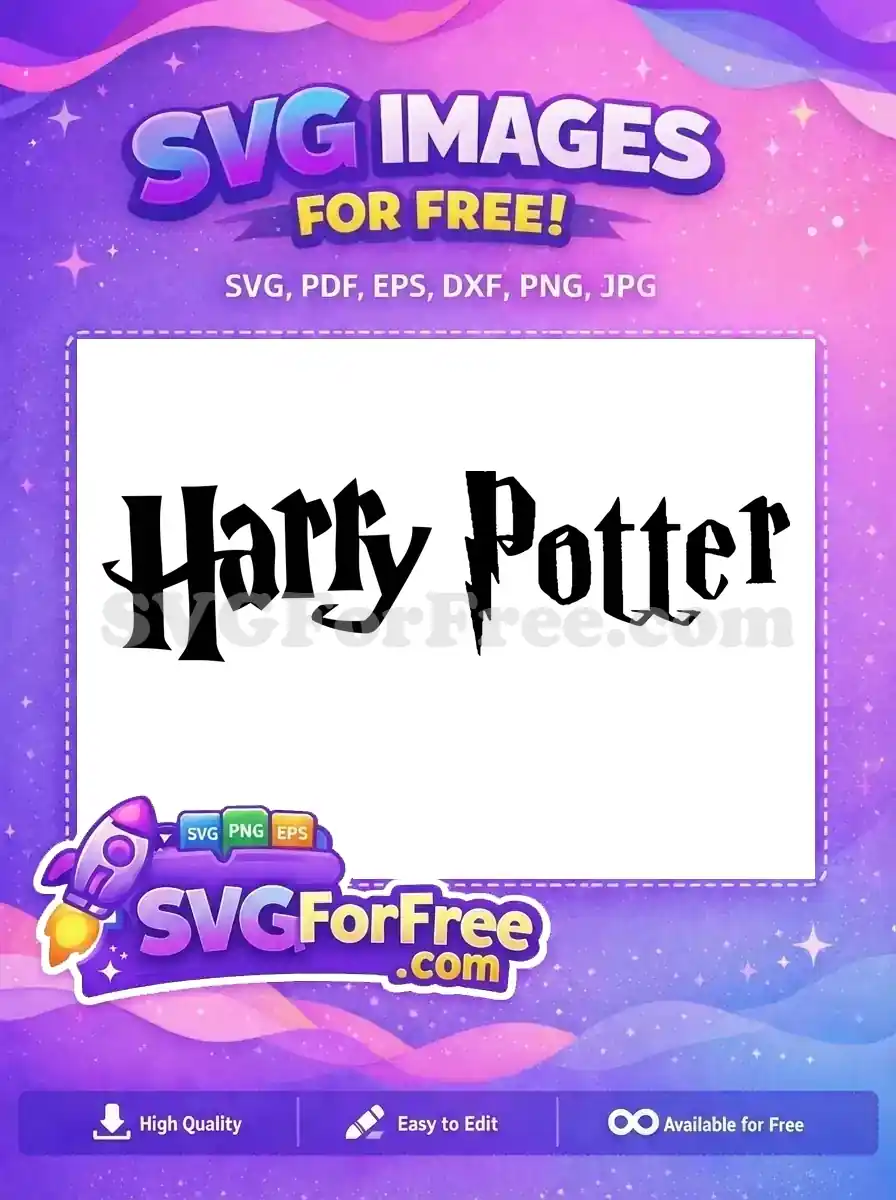
Free Black Font Free Wizardry Text Harry Potter Free SVG – Instant Download
Iconic wizarding movie logo text with the lightning bolt P, available as a free-to-use vector file.
Free Black Font Free Wizardry Text Harry Potter Free SVG